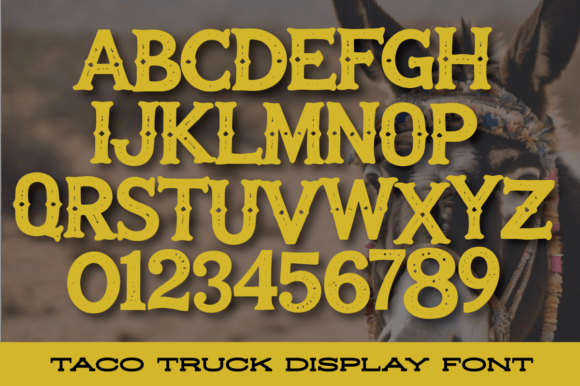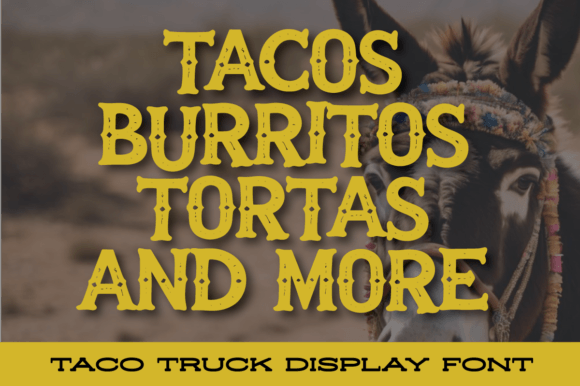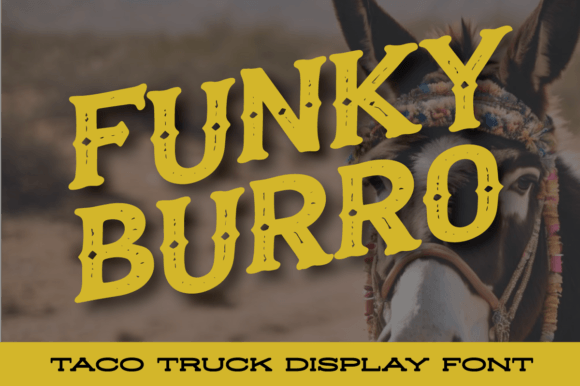
Funky Burro Font: The Perfect Addition to Your Design Toolbox
Are you a designer or crafter looking for a unique and eye-catching font to add to your collection? Look no further than the Funky Burro font! Designed with the idea of the best roadside taco stand in mind, this vintage and rustic font is perfect for signs, menus, party invites, and posters.
The Inspiration Behind Funky Burro
Funky Burro was created with the goal of capturing the essence of a classic roadside taco stand. The font’s design is inspired by the colorful and playful signs that are often found at these types of establishments. The result is a font that is both fun and nostalgic, with a unique character that is sure to stand out in any design.
Characteristics of Funky Burro
Funky Burro is a true standout when it comes to fonts. Its vintage and rustic design gives it a one-of-a-kind look that is perfect for adding a touch of personality to any design. Some of the key characteristics of the font include:
- Distressed texture: The font features a distressed texture that gives it a worn, vintage look.
- Unique letterforms: Each letter in the font has its own unique character, with bold lines and playful curves.
- Support for multiple languages: Funky Burro supports multiple languages, making it a great choice for designers who work with international clients.
Uses for Funky Burro
Funky Burro is a versatile font that can be used in a variety of design applications. Some of the most popular uses for the font include:
- Signs and menus: The font’s bold, playful design makes it perfect for use on signs and menus.
- Party invites and posters: Funky Burro is a great choice for party invites and posters, adding a touch of whimsy and fun to any design.
- Branding and packaging: The font’s unique character makes it a great choice for use in branding and packaging design.
Why Designers and Crafters Love Funky Burro
Designers and crafters love Funky Burro for a variety of reasons. Some of the most popular reasons include:
- Unique design: The font’s unique design sets it apart from other fonts on the market.
- Versatile: The font’s versatility makes it a great choice for use in a variety of design applications.
Tips for Using Funky Burro
Here are a few tips for using Funky Burro in your designs:
- Experiment with different colors: The font’s distressed texture looks great in a variety of colors, so don’t be afraid to experiment.
- Use it sparingly: Funky Burro is a bold font, so it’s best to use it sparingly to avoid overwhelming the design.
- Pair it with other fonts: The font pairs well with other fonts, so feel free to get creative and try out different combinations.
Funky Burro is a unique and eye-catching font that is perfect for designers and crafters looking to add a touch of personality to their designs. With its vintage and rustic design, distressed texture, and support for multiple languages, it’s a great choice for use in a variety of design applications. Whether you’re creating signs, menus, party invites, or posters, Funky Burro is sure to be a hit.